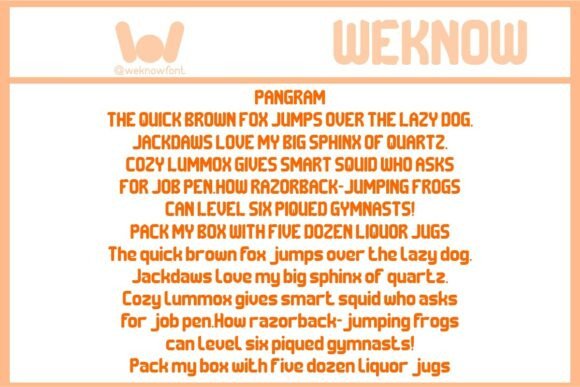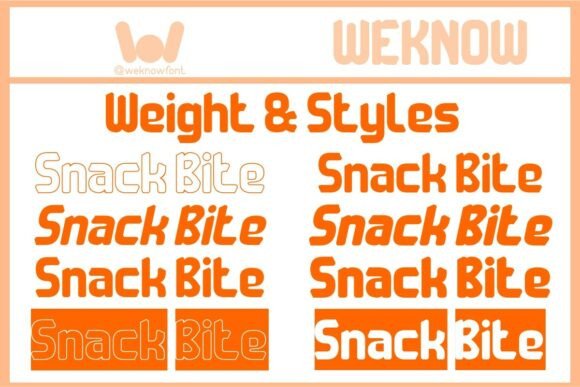
Introduction to Snack Bite Font
Imagine you’re working on a creative project, brainstorming ideas, and searching for the perfect font to bring it all together. Suddenly, you stumble upon a hidden gem that makes your design pop. This is the moment when the Snack Bite Font enters the scene, elevating your project with its unique blend of vintage and futuristic charm.
As a designer, you’re always on the lookout for high-quality design resources that can help you stand out in a crowded market. The Snack Bite Font is one such treasure, offering a versatile and playful style that’s perfect for capturing attention. With its transparent background and free download option, you can easily incorporate this design gem into your next creative project, whether it’s a magazine headline, corporate identity, or online platform.
Get ready to indulge in the fun and quirky world of Snack Bite Font, where creativity knows no bounds and the possibilities are endless.
Key Features of Snack Bite Font
- High-quality, vector-based font design, ideal for use in various creative projects.
- Features a transparent background, allowing for seamless integration with any design.
- Each font includes a comprehensive set of characters, including uppercase and lowercase letters, numbers, and punctuation marks.
- The Snack Bite Font is designed to be highly scalable, with a resolution of 300 DPI, making it suitable for use in various design applications, from web to print.
- Unique characteristics include its modern, playful aesthetic and its versatility in use, making it an excellent choice for designers looking for a distinctive and eye-catching font.
Honest Review: Snack Bite Font
I recently stumbled upon the Snack Bite Font while searching for a unique design resource for a creative project. I was impressed by its high quality and versatility, making it perfect for a variety of applications.
What works well: ✨ The Snack Bite Font offers a wide range of characters, including letters, numbers, and symbols, which is ideal for creating engaging designs. It also has a transparent background, making it easy to layer over images or other design elements. The font is also available as a free download, which is a huge plus for designers on a budget.
Some limitations: ⚠️ While the Snack Bite Font is a great addition to any design arsenal, it may not be suitable for all projects. The font’s playful and casual vibe may not be the best fit for formal or professional designs. Additionally, the font may not be compatible with all operating systems or software.
Overall, I’m impressed with the Snack Bite Font and would definitely recommend it to designers looking for a high-quality, versatile font for their creative projects. It’s a great resource to have in your design toolkit, and the free download option makes it accessible to designers of all levels.
Tips for Getting the Most Out of Snack Bite Font
To get the most out of Snack Bite Font, experiment with different font sizes and colors to achieve the desired look. You can also combine the font with other design elements, such as images or graphics, to create a unique and eye-catching design.
Common Use Cases for Snack Bite Font
Snack Bite Font is a versatile design resource that can be used in a variety of creative projects. Some common use cases include food and beverage branding, packaging design, and social media graphics. The font’s high-quality and transparent background make it ideal for creating visually appealing designs that stand out from the crowd.
Can I use the Snack Bite Font with a transparent background, and are there any color limitations?
Yes, the Snack Bite Font is designed to work with transparent backgrounds, allowing you to create designs with a seamless look. There are no color limitations, and you can use the font with any color palette you choose. However, please note that the font’s color palette is designed to work best with bright and bold colors, so you may want to experiment with different color combinations to achieve the desired effect.